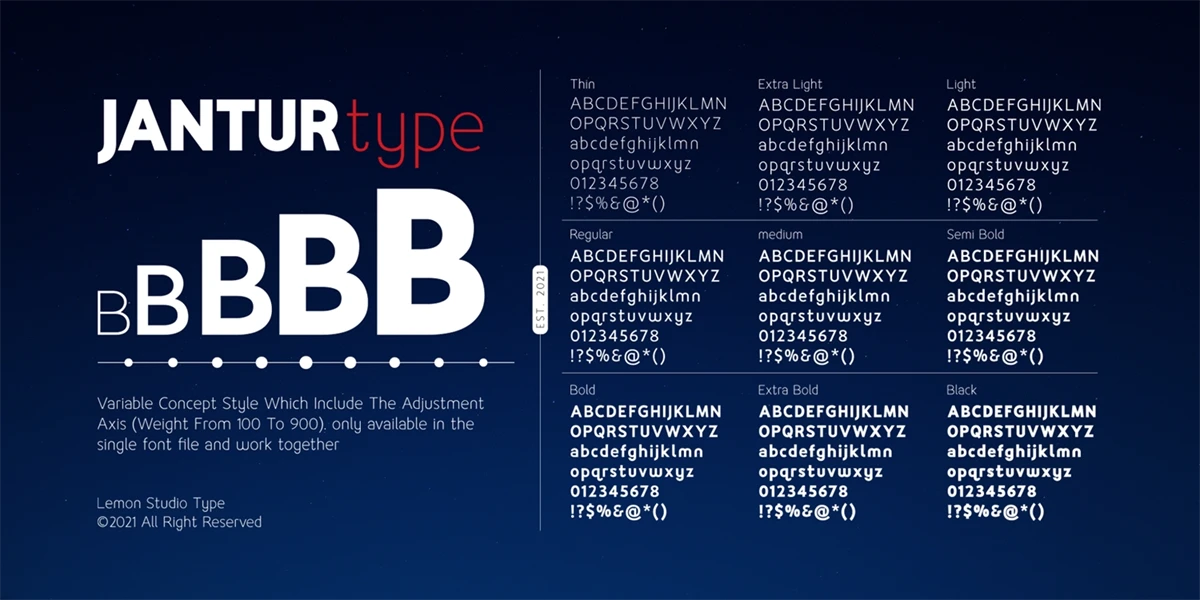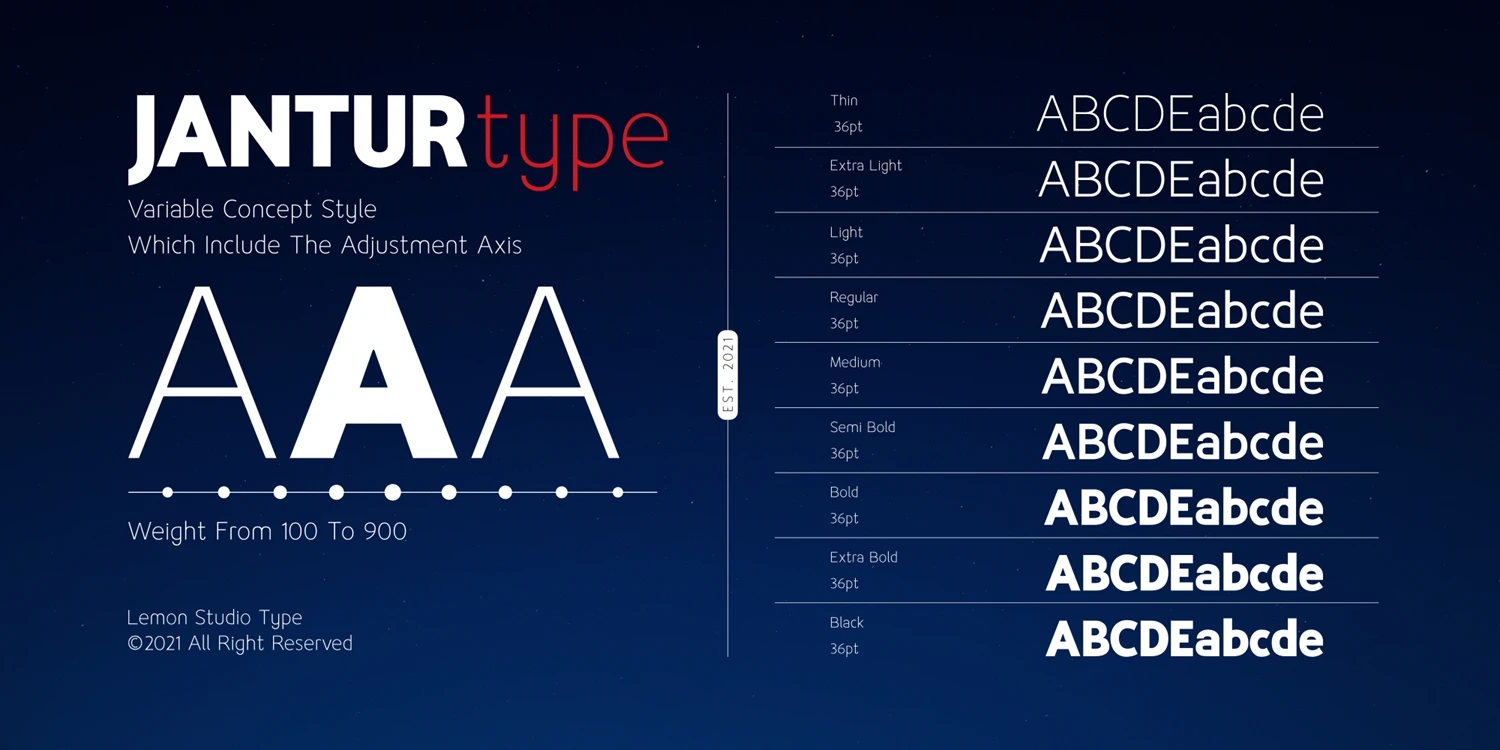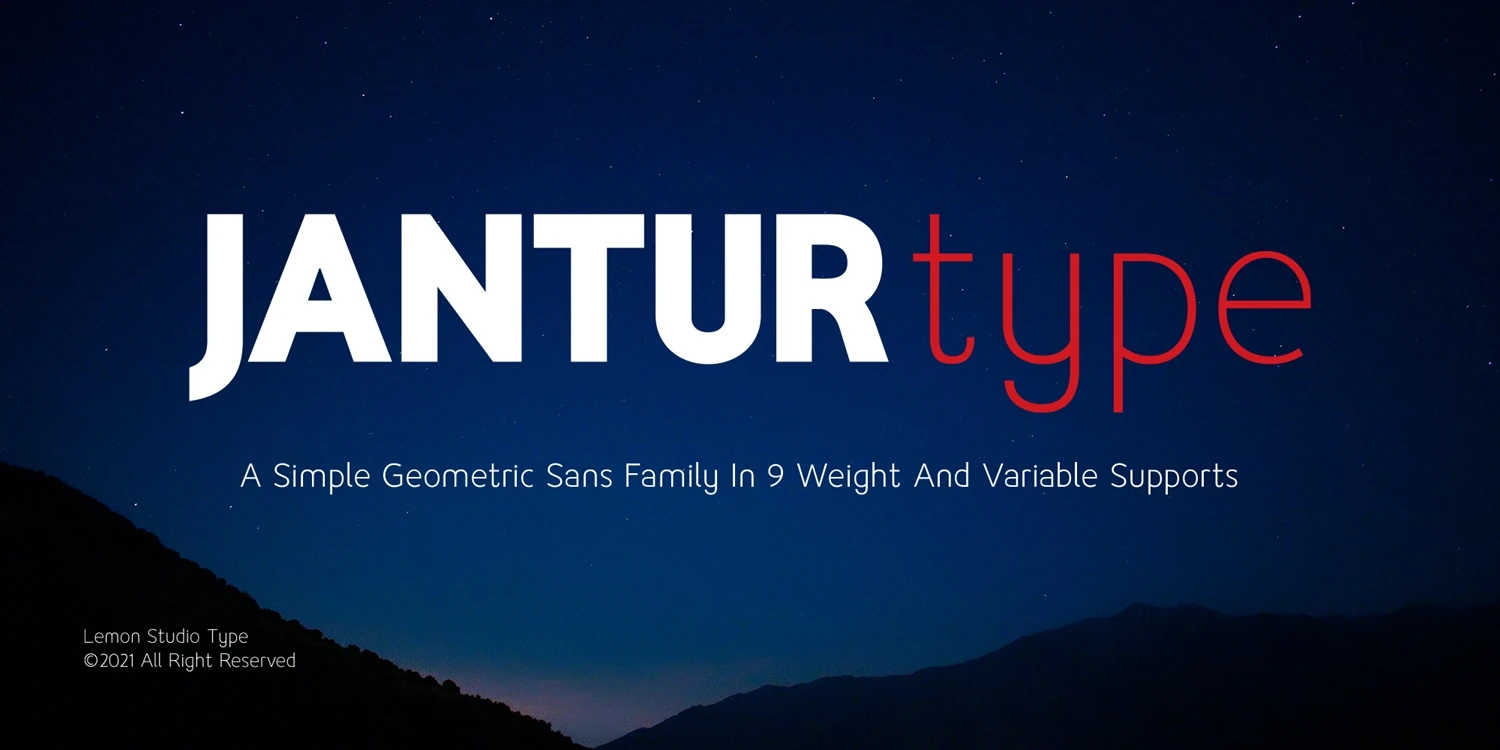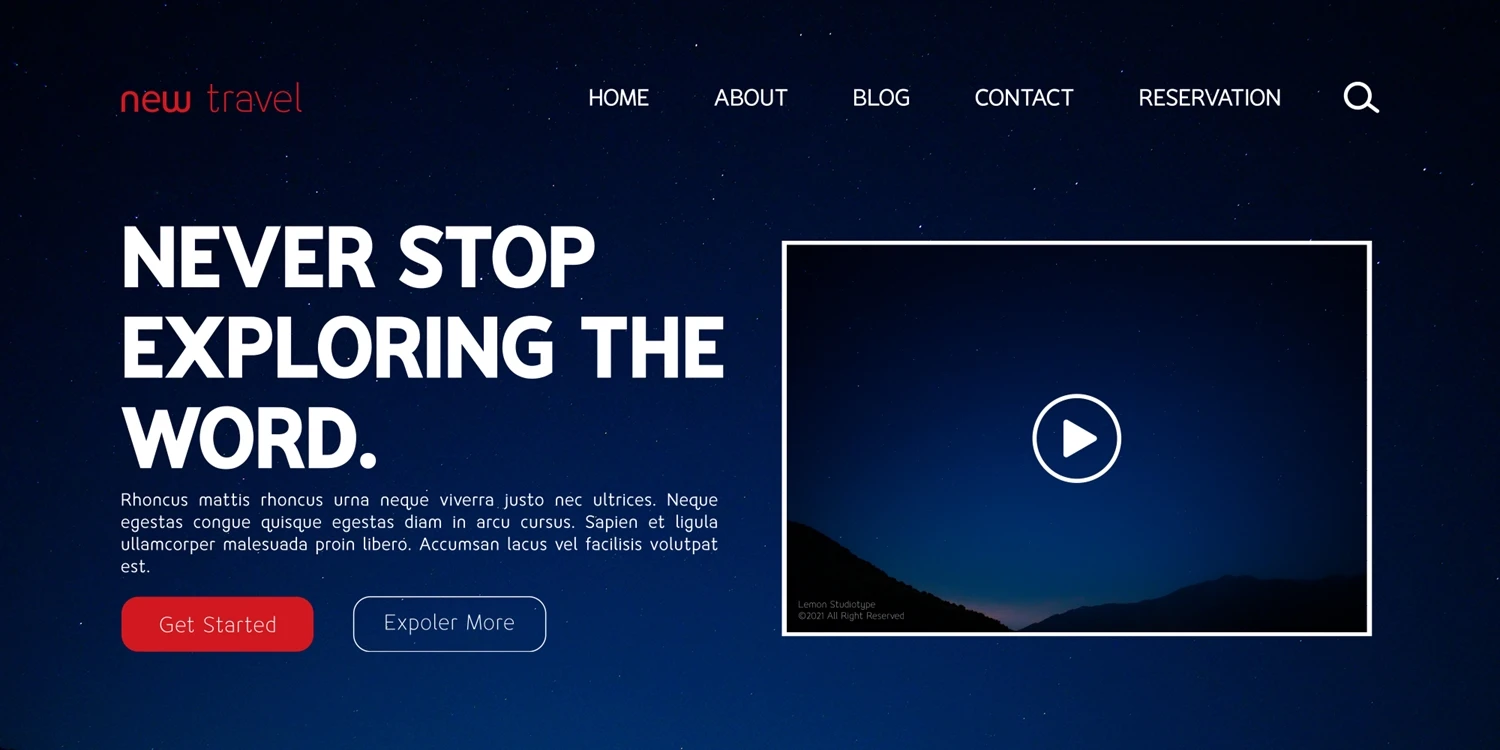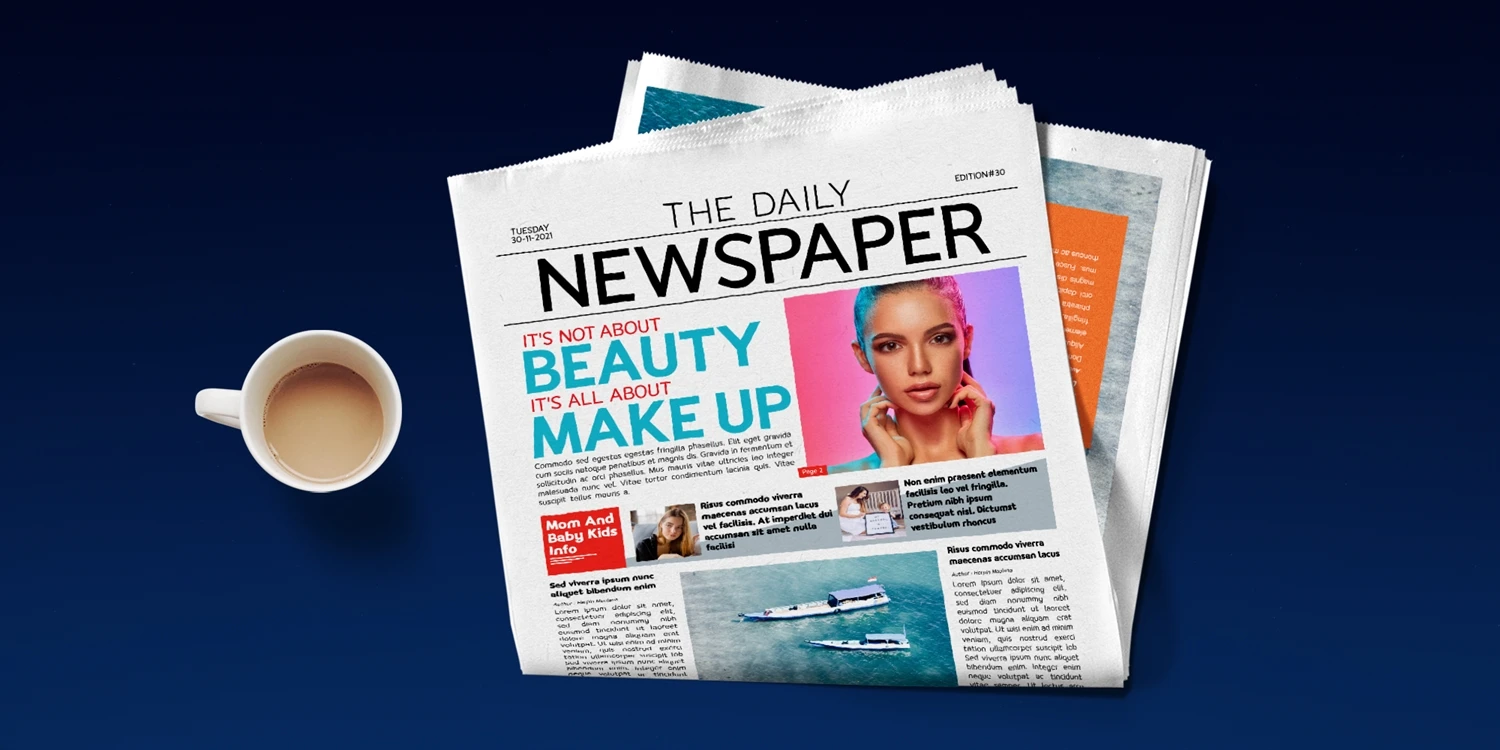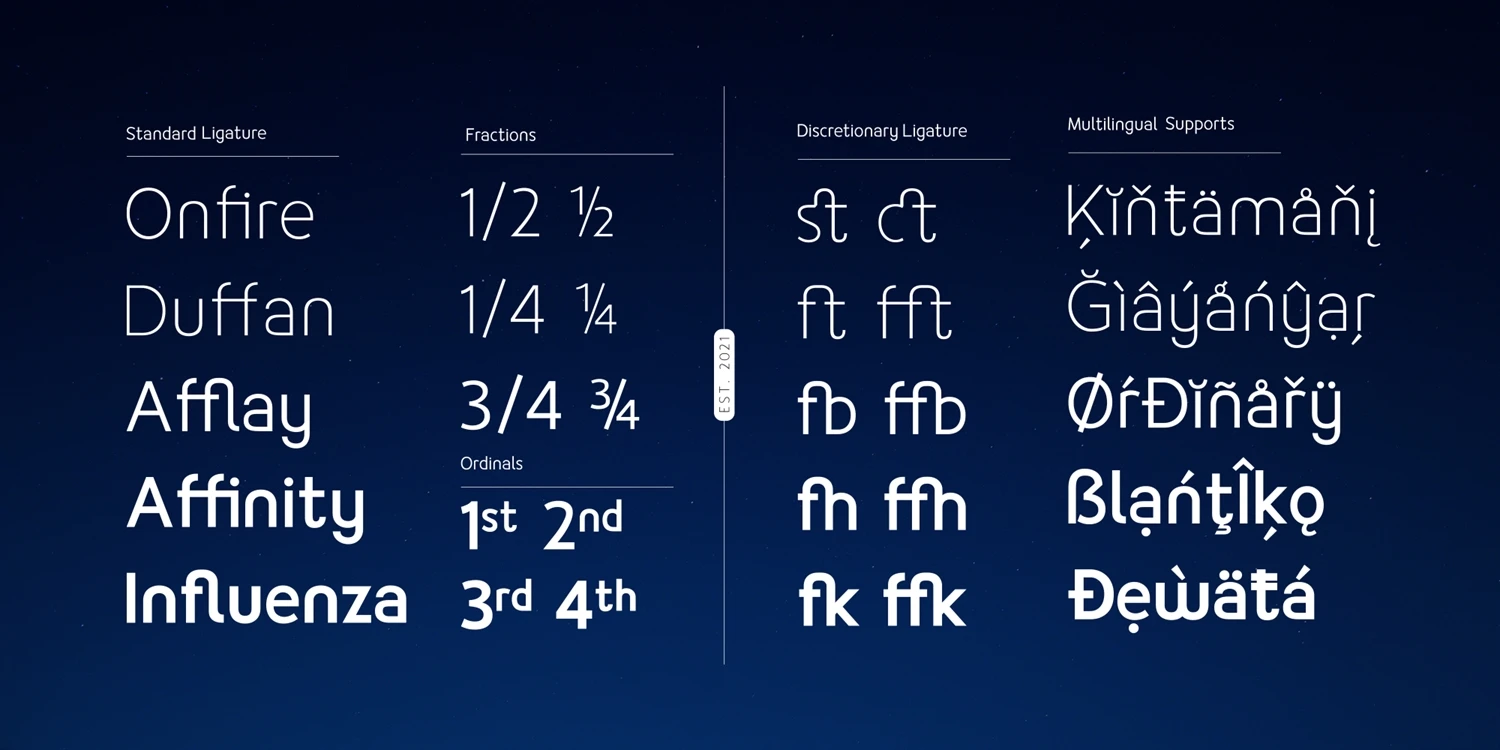
jantur Type is a simple geometric sans family with charming curves and natural flow. variable font technology, and its axis weight range spreads from thin to black forms. Flexible and adaptable,
it is 100% Latin Plus, Supporting 219 Latin-based languages, which are spoken in different 212 countries.
This font is suitable for any project. Great for graphic design and any display use. It can easily work for web, signage, corporate as well as editorial designs.
Jantur Type has 9 weights with a total of 9 styles. and legibility makes it suitable for any kind of text application, from brand design to extensive text layouts.
it is 100% Latin Plus, Supporting 219 Latin-based languages, which are spoken in different 212 countries.
This font is suitable for any project. Great for graphic design and any display use. It can easily work for web, signage, corporate as well as editorial designs.
Jantur Type has 9 weights with a total of 9 styles. and legibility makes it suitable for any kind of text application, from brand design to extensive text layouts.